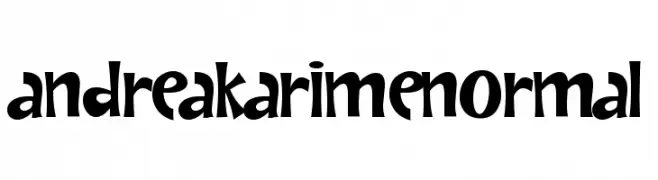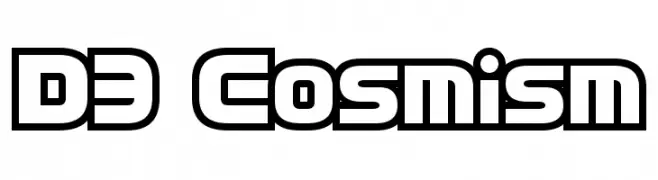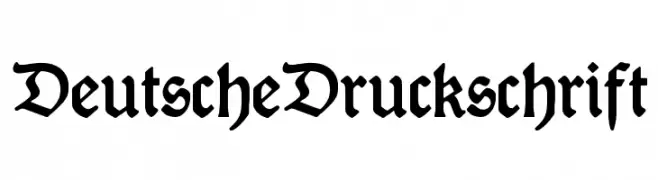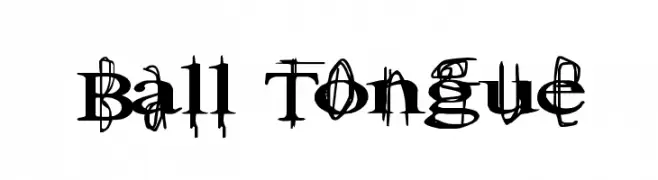
( Fonts by Maelle.K - Thomas Boucherie )
A bold, graffiti-inspired font with sharp angles and dynamic strokes.
( Fonts by site.xavier.edu/polt/typewriters/ - Richard Polt )
A vintage-inspired, hand-drawn font with artistic flair and irregular strokes.
( Fonts by Grafito Design - dibujosenlinea.ideasintegrales.net )
A playful, whimsical font with bold, hand-drawn characters.
( Fonts by www.DigitalDreamDesign.net )
A bold, futuristic font with geometric outlines and a tech-inspired aesthetic.
A bold, decorative font with intricate detailing and vintage flair.
( Fonts by Spork Thug Typography - Josh Wilhelm - www.lifewithouttaffy.com/taffy/blog )
A chaotic, decorative font with sharp, jagged edges and overlapping strokes.